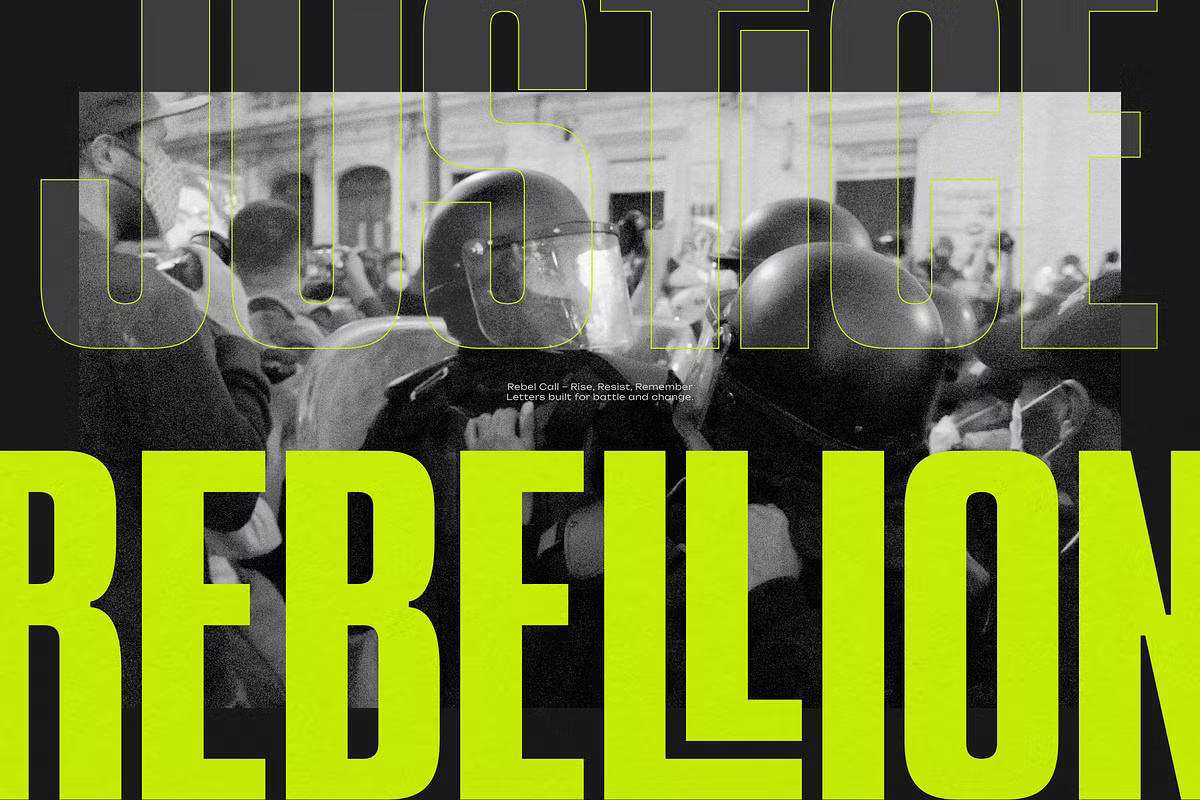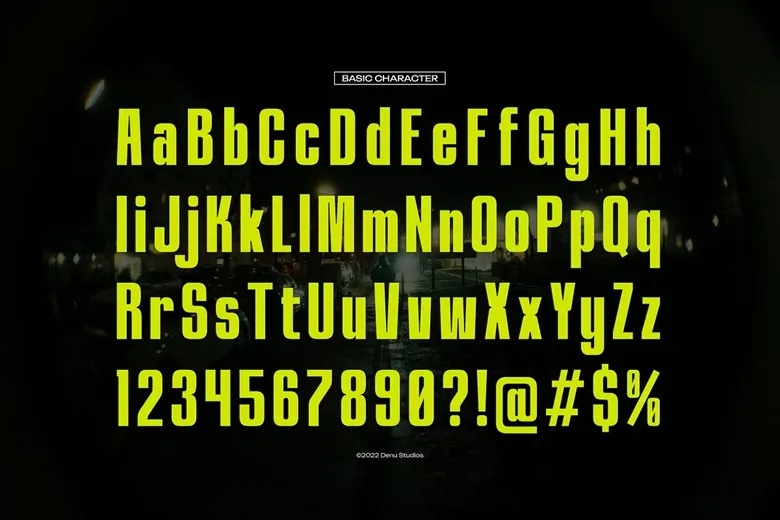
Metroway Font
Metroway is a bold, elegant, and condensed sans serif font that brings a refined touch to a wide range of design projects. Ideal for logos, branding, homeware designs, product packaging, and more, it adds a modern and sophisticated look to items such as mugs, posters, shopping bags, t-shirts, book covers, and name or invitation cards. Whether you’re working on greeting cards, labels, or any special event materials, Metroway delivers a bold sans serif aesthetic that stands out.
Metroway Sans Serif Font